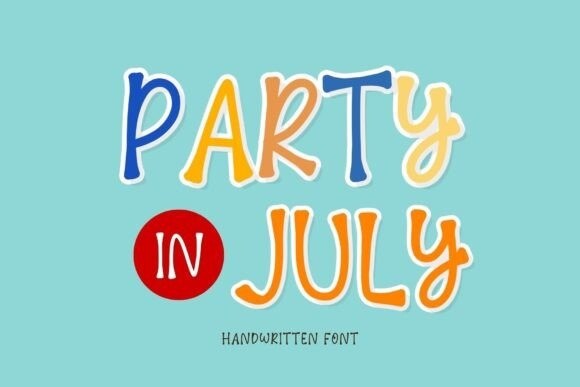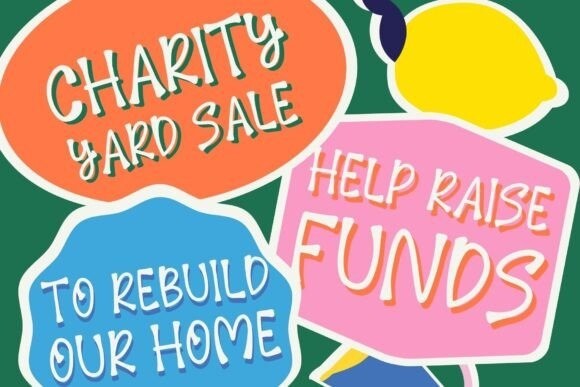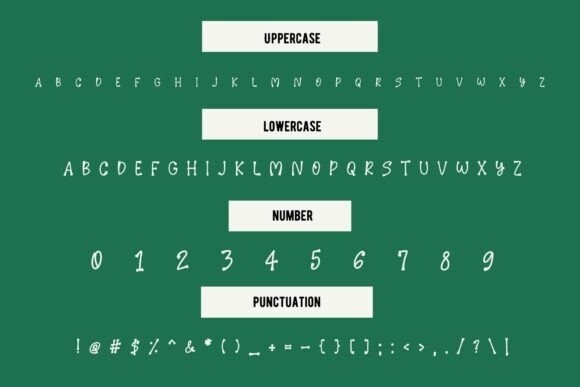
Party in July Font
Party in july Font is a cool display font. It embodies playfulness and authenticity and is the perfect choice for all your favorite projects such as blog posts, logos, branding, ads, invitations, greeting cards, planners, photo albums, decorations, and much more.